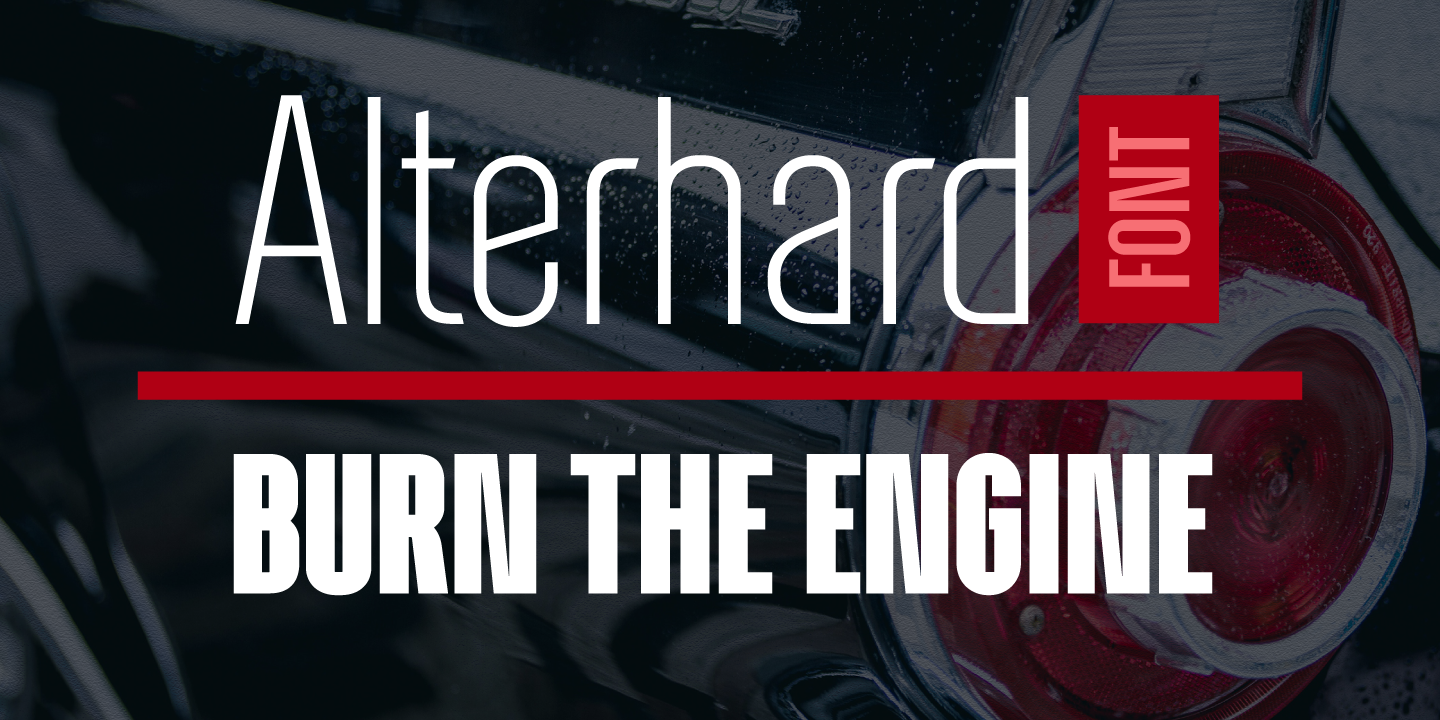
The Alterhard Font is a bold and impactful typeface, designed to make a strong statement and grab attention. Imagine this font dominating headlines on extreme sports websites, adding an edgy vibe to band merchandise, or providing a powerful visual punch on gaming posters. Its assertive character makes it an excellent choice for branding that seeks to convey strength, modernity, and a no-nonsense attitude. Alterhard Font is also ideal for creating powerful logos, dynamic social media campaigns, and any project where you need your message to be heard loud and clear with an undeniable presence.
What makes Alterhard Font so exciting is its striking visual appeal and ability to command attention. It possesses an undeniable energy that injects dynamism into any design. The sharp angles and robust forms give it a contemporary, industrial feel, perfect for projects that demand a sense of power and forward-thinking design. This font doesn't just display text; it asserts it, making every word feel more impactful and memorable. Its aggressive yet refined aesthetic ensures your designs will stand out, leaving a lasting impression on your audience and reinforcing a sense of cutting-edge style.
The Alterhard Font family, built for versatility, typically offers a range of weights to suit various design needs. While a strong Regular weight forms the foundation, you might also find accompanying variations such as a Light or Thin version for more subtle applications, or an even heavier Bold or Black weight for maximum impact. Sometimes, an Oblique or Italic version could be included to add a sense of motion or emphasis. These different weights allow designers to create a robust visual hierarchy, ensuring that Alterhard Font can be effectively used from commanding headlines to supporting text while maintaining its distinctive character. For those looking for the powerful Alterhard Font Free Download, these family members will undoubtedly amplify your design capabilities.